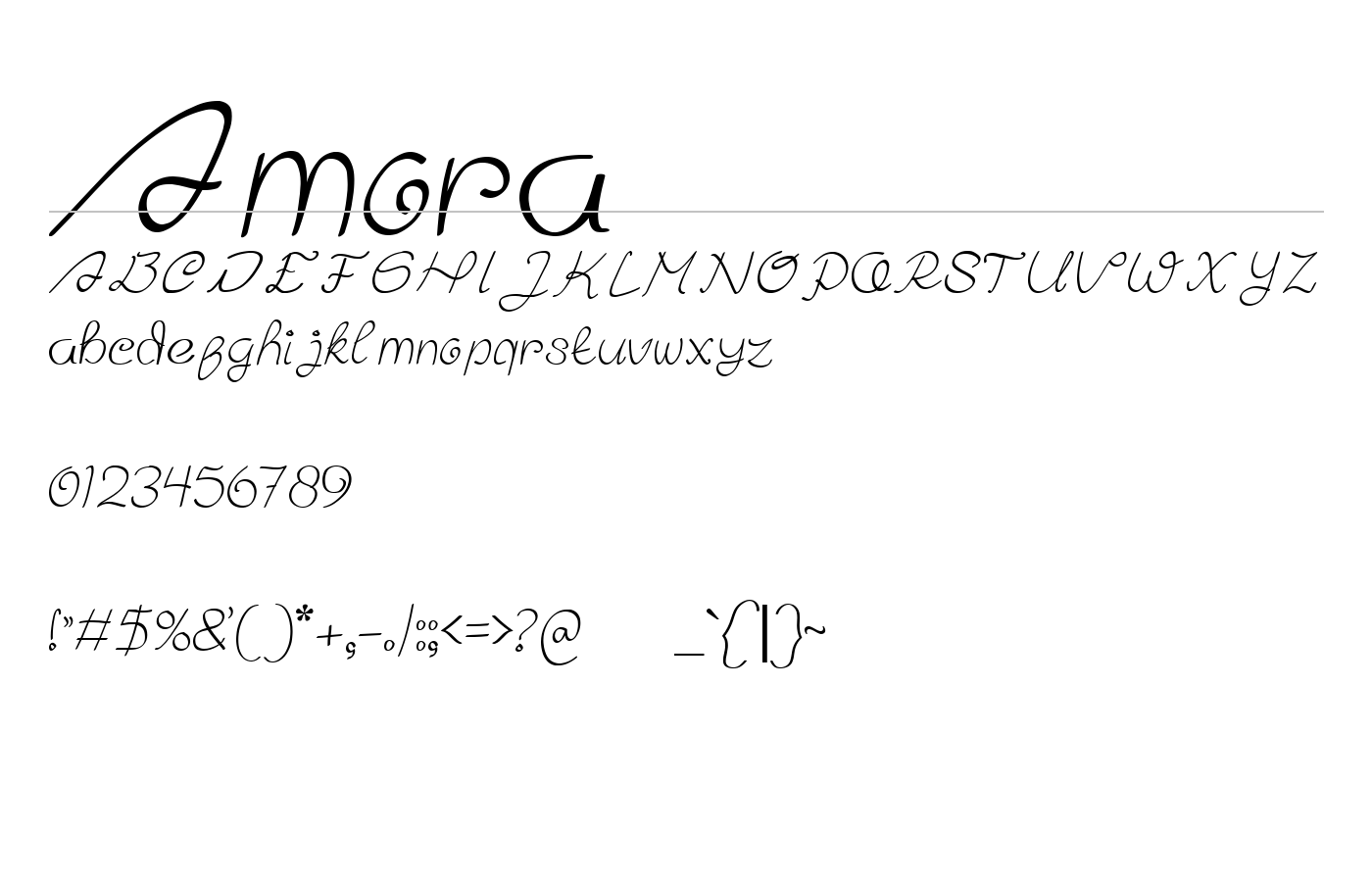
Amora is a delicate and elegant script font with a light weight and a narrow width that gives it a refined, graceful appearance. Its flowing, thin strokes and smooth curves create a sophisticated yet approachable feel, making it ideal for fashion, luxury branding, invitations, and stylish editorial work where a touch of femininity and charm is desired.
Amora Font
About Amora Font